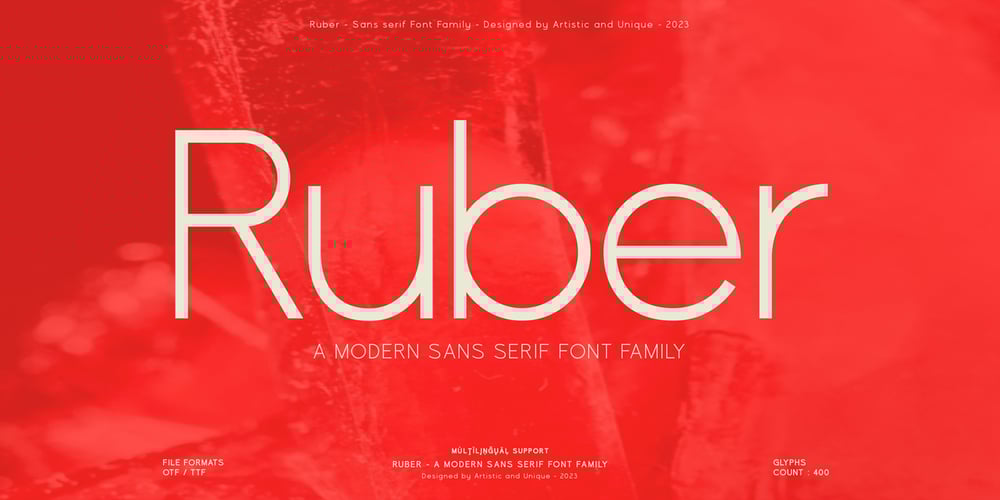
Ruber Font Family was designed by Osman Taner Kucukgenc and published by Artisticandunique. Ruber contains 12 styles and family package options. Ruber – Sans serif font family – Multilingual – 12 StylesYou can easily use the sans serif font feature in many areas. You can compose your text with regular characters, highlight heavy characters and titles. Functional in many sizes and environments.If you are looking for a modern – geometric and sans serif style that can be effective in branding, you can easily use this font. It is also assertive about being a highly readable font with different weights.Have a good time.